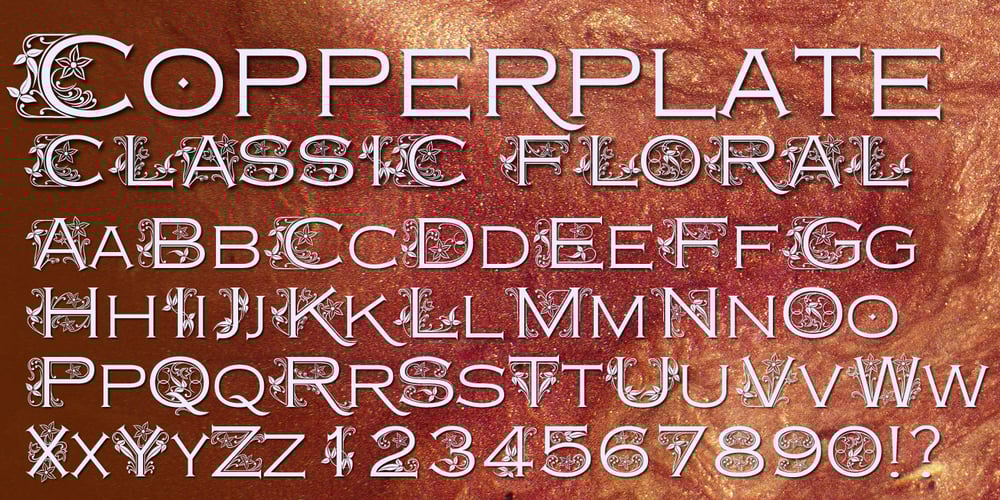
Copperplate Classic Light Floral Font Family was designed by Gert Wiescher and published by Wiescher Design. Copperplate Classic Light Floral contains 1 styles and family package options. Copperplate Classic Light Floral is the latest addition to my Copperplate Classic Group of fonts. The floral decorations go perfectly well together with the classic forms of the Copperplate. Your decorative designer Gert Wiescher.